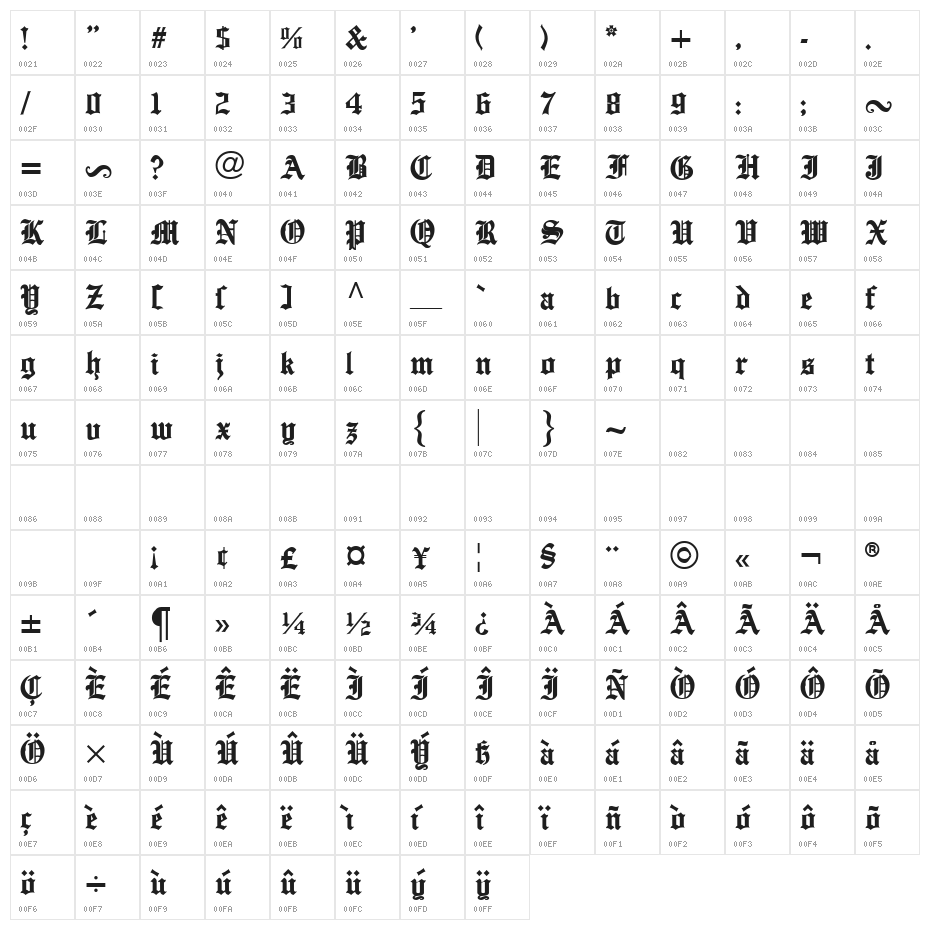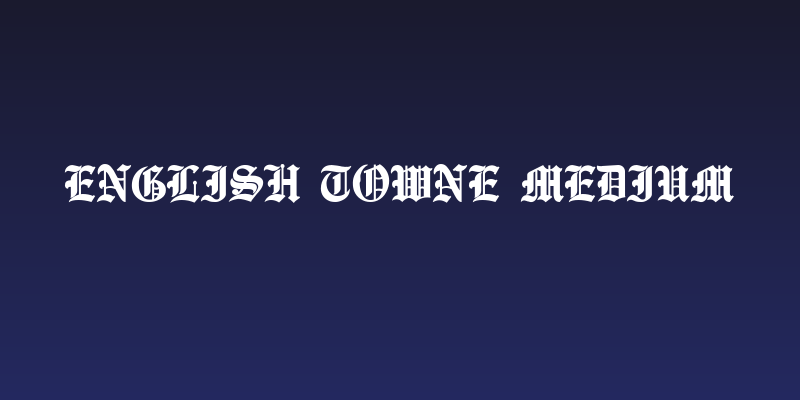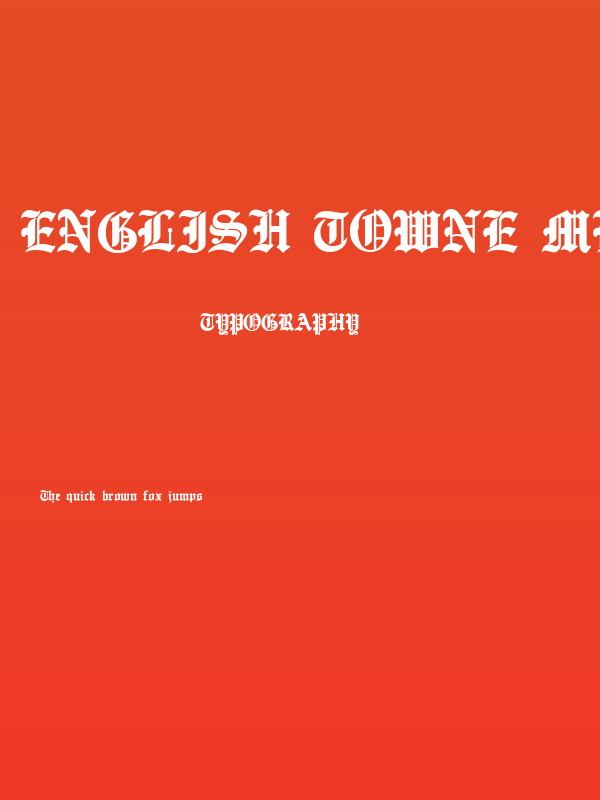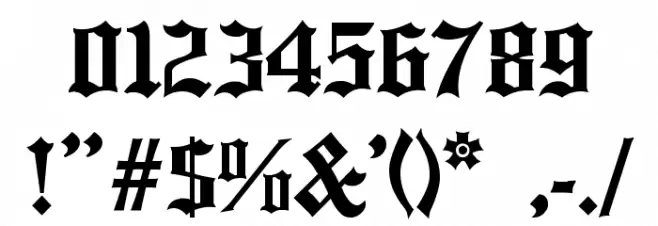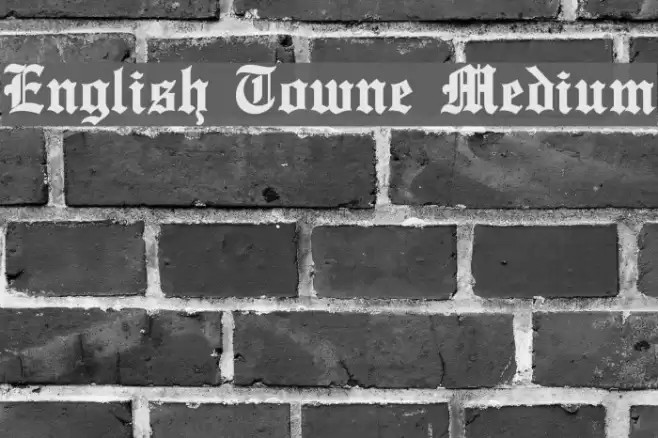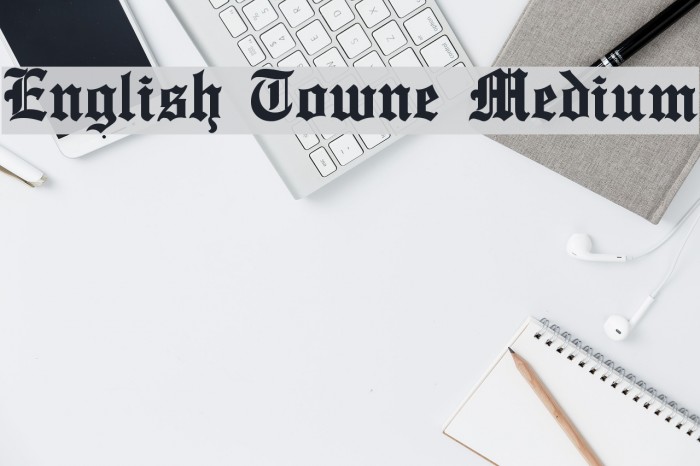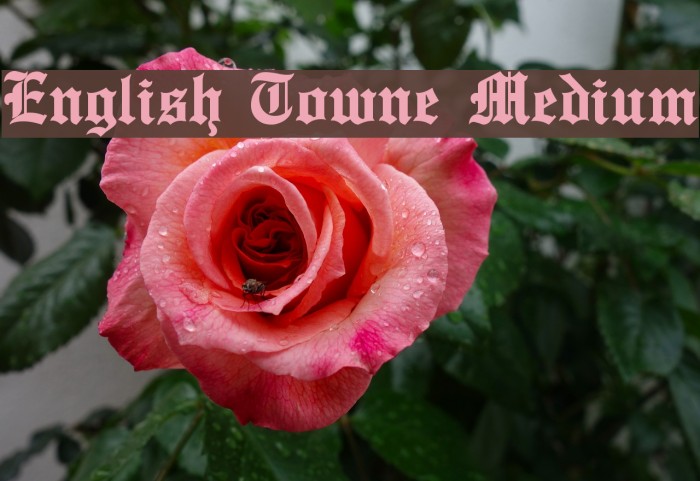
English Towne Medium Font
English Towne Medium Description
This font embodies a classic Blackletter style, characterized by its ornate and intricate design. The letters are bold and angular, with sharp edges and elaborate serifs that give it a medieval, gothic appearance. The uppercase letters are particularly decorative, featuring flourishes and embellishments that enhance their visual impact. The lowercase letters maintain the same intricate style, ensuring consistency throughout the typeface. The numbers and special characters are designed to match the overall aesthetic, making this font suitable for projects that require a historical or traditional feel.
| Overall Style | Classic |
| Use Case | Headlines, Logos, Decorative text |
| Proposed Projects | Ideal for historical documents, certificates, book covers, posters, and branding that requires a traditional or gothic touch. |